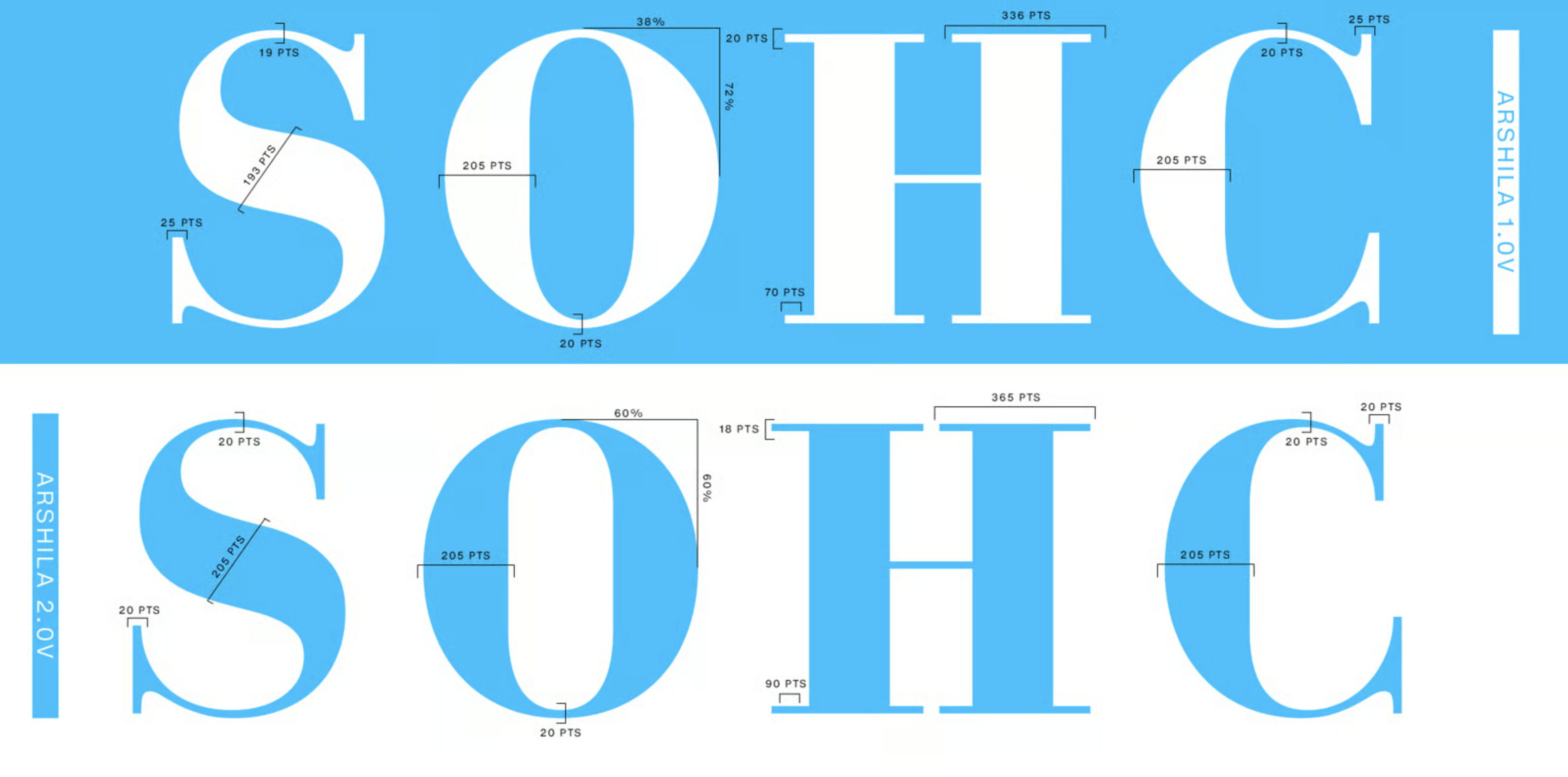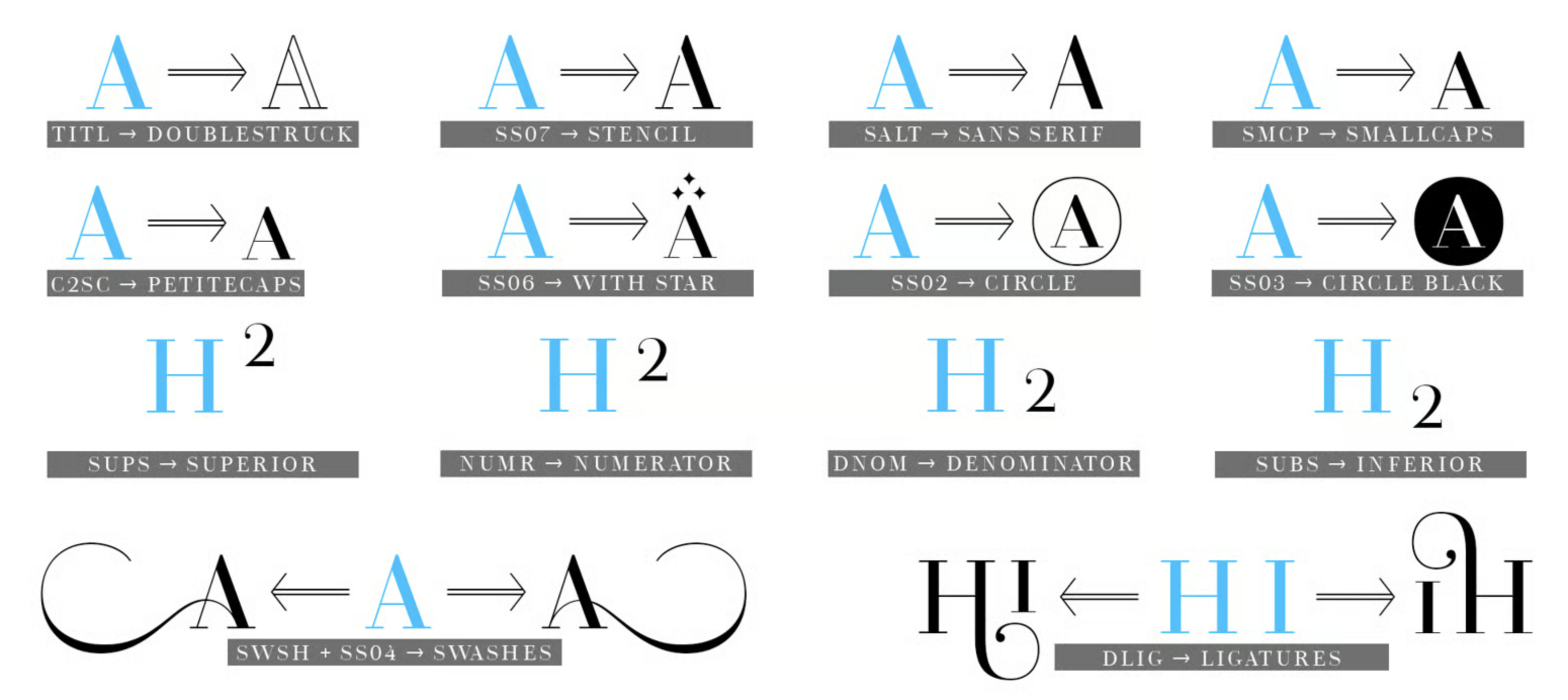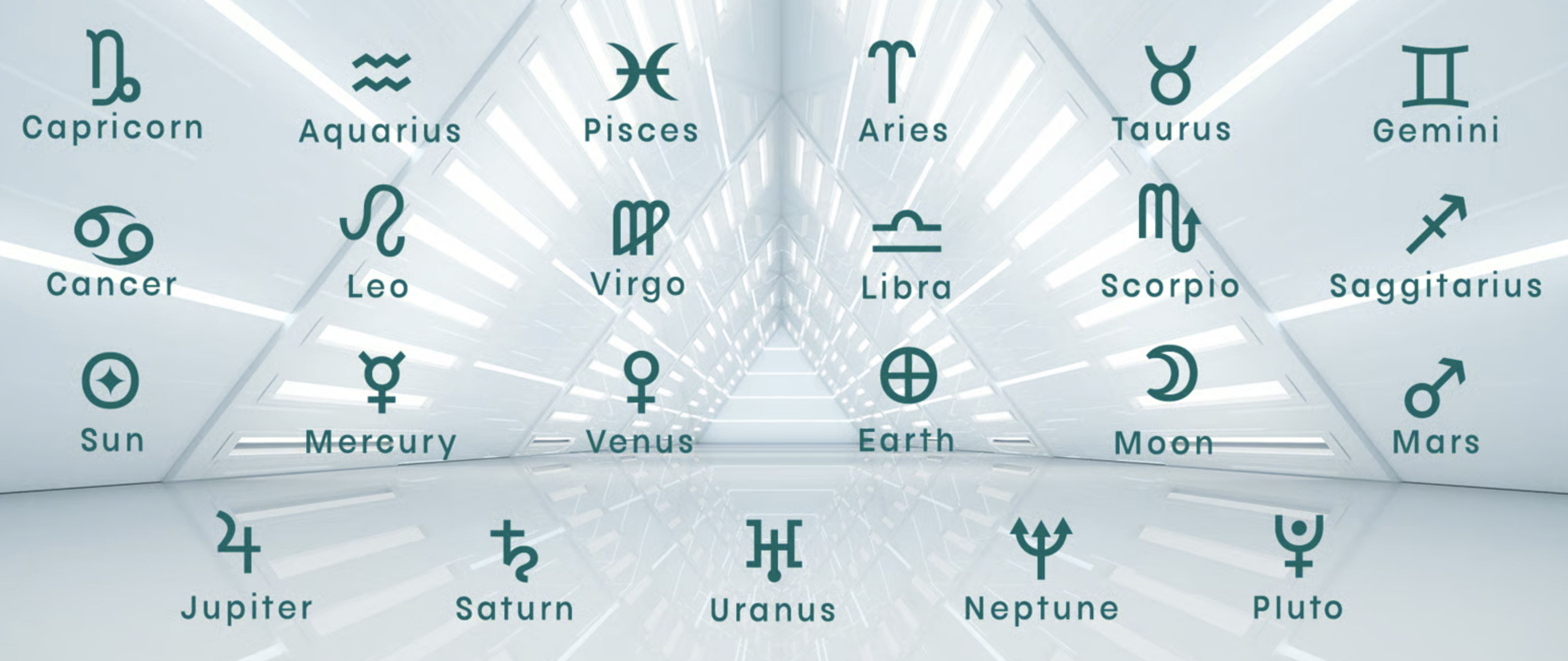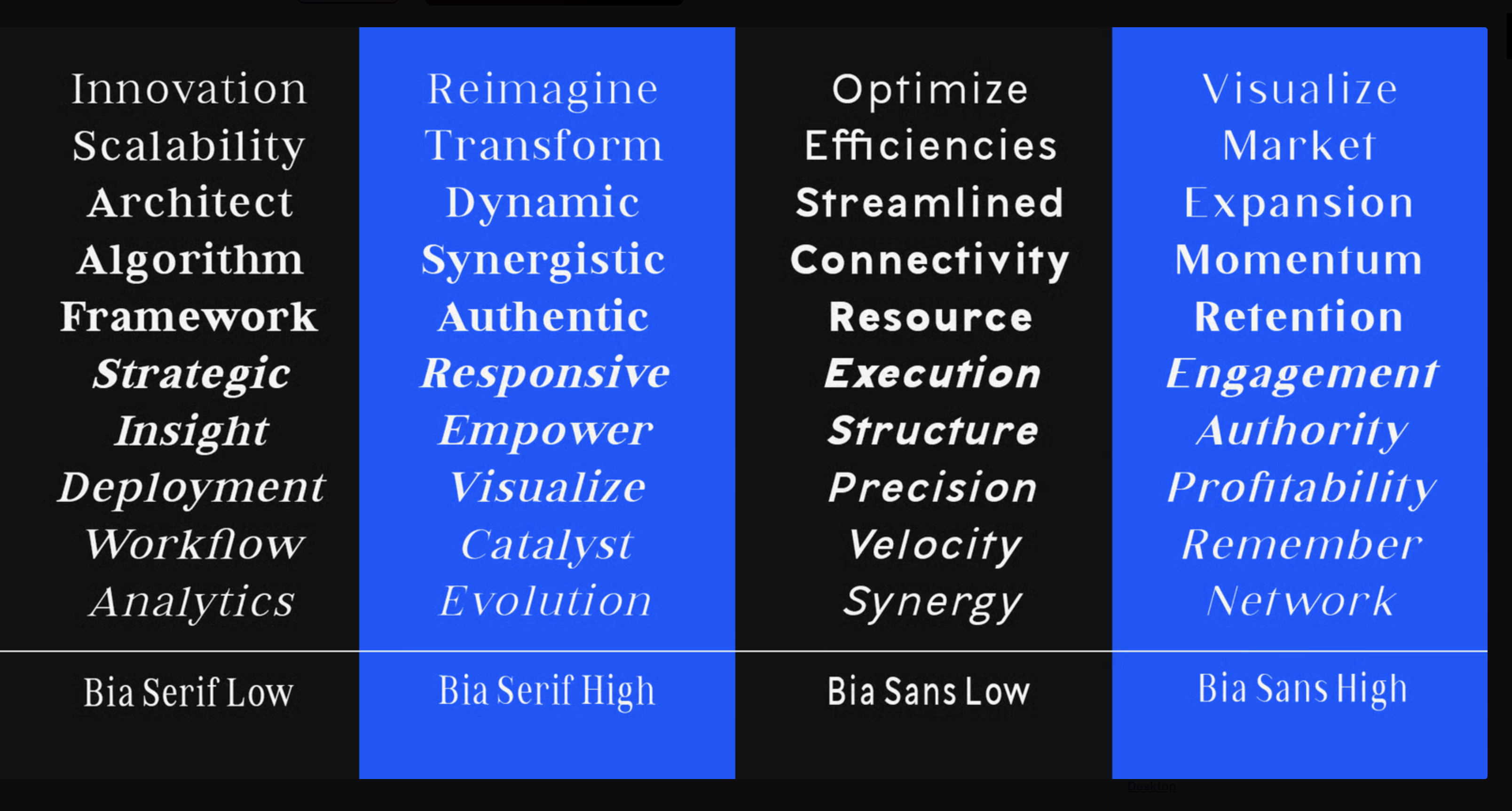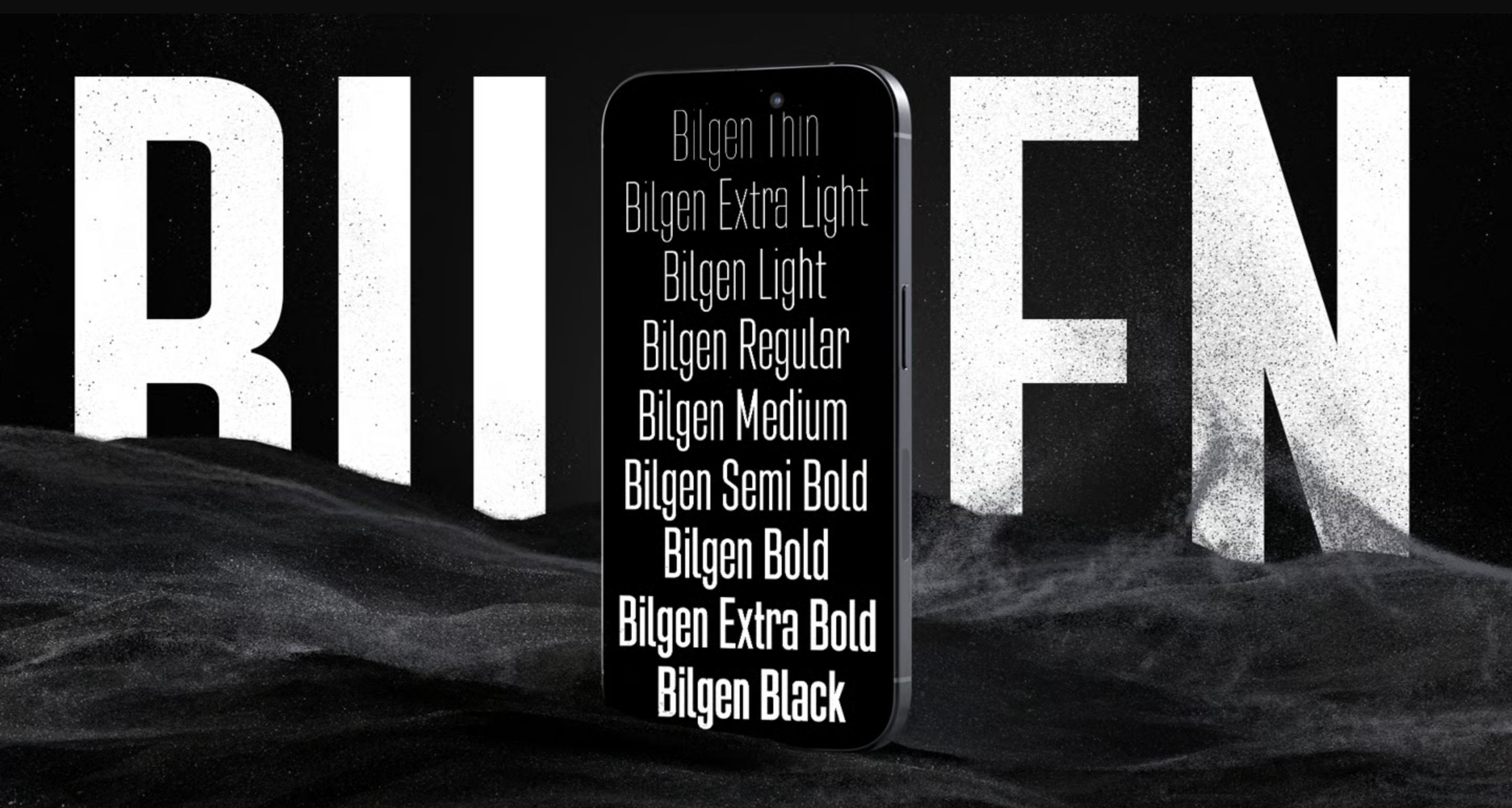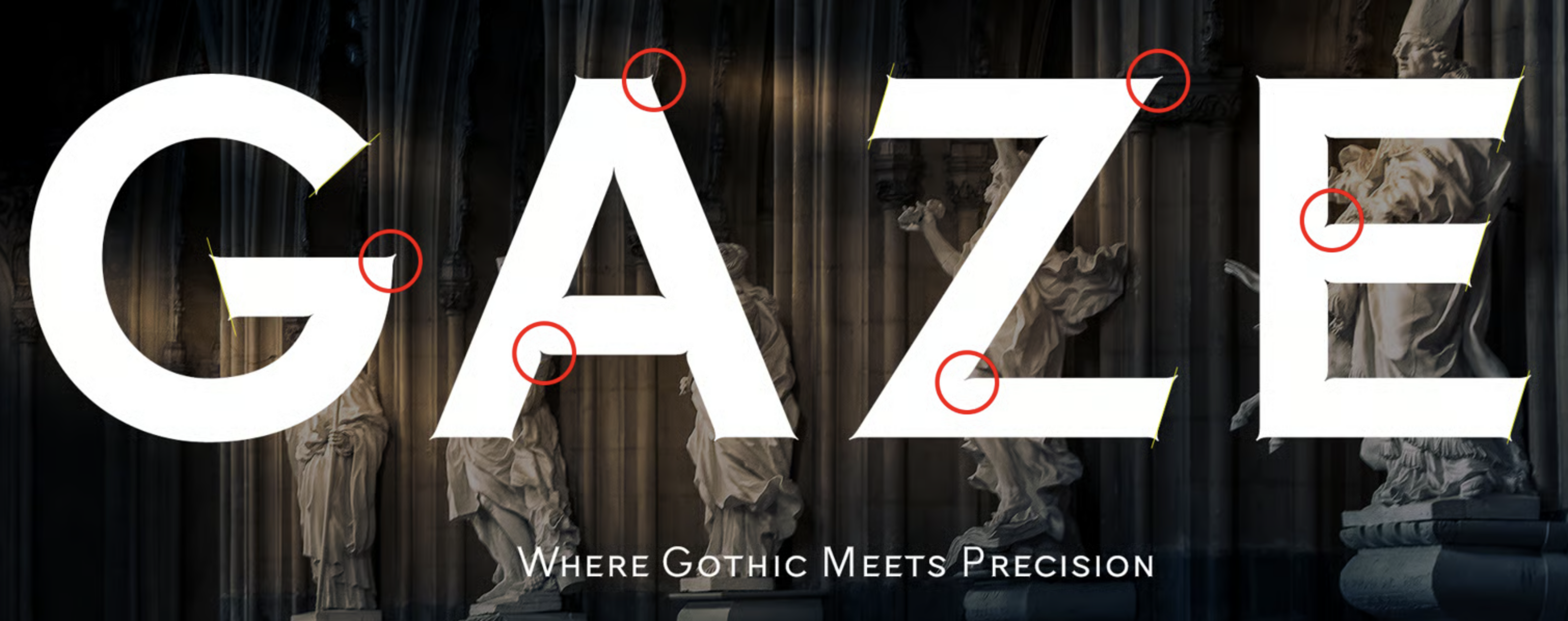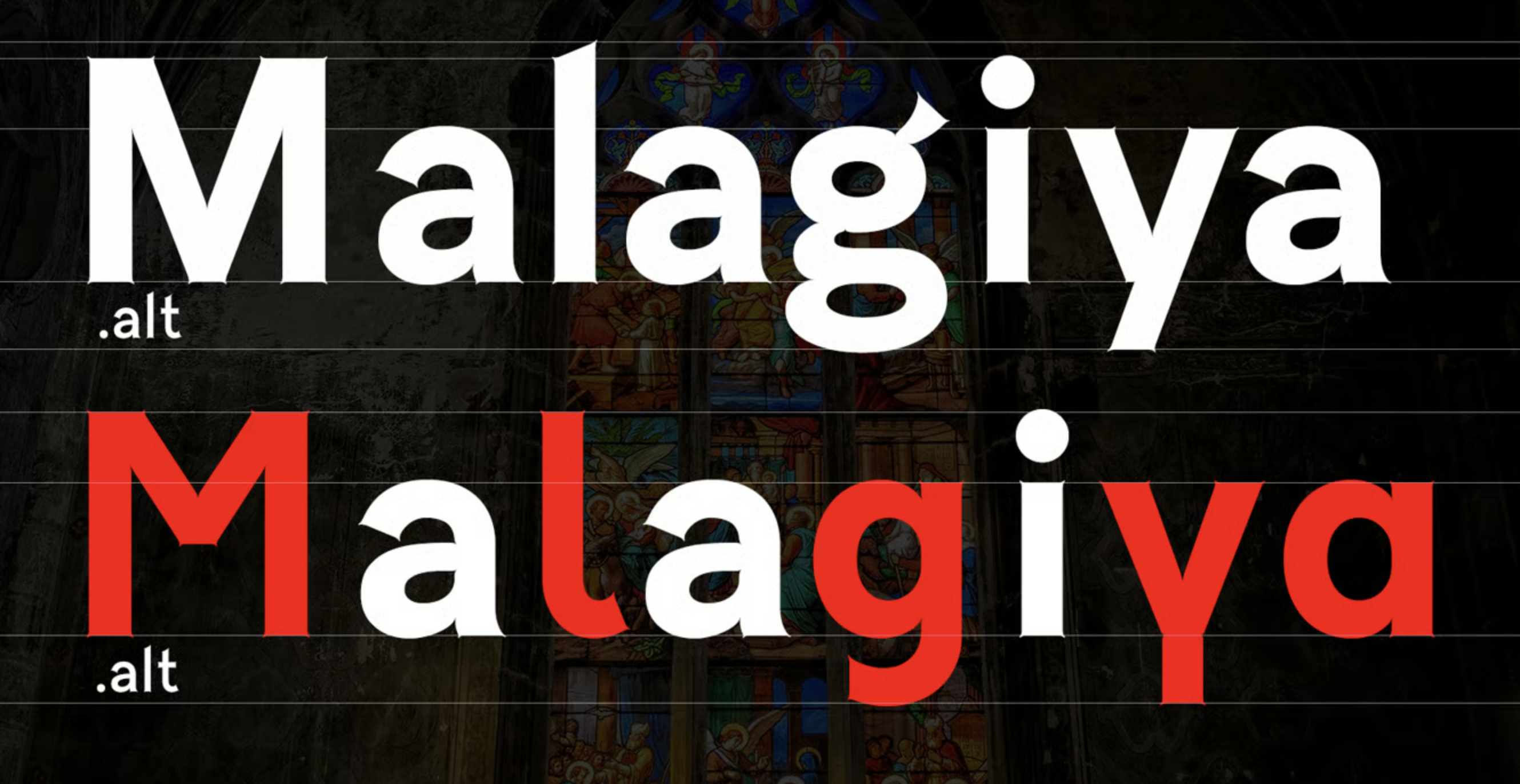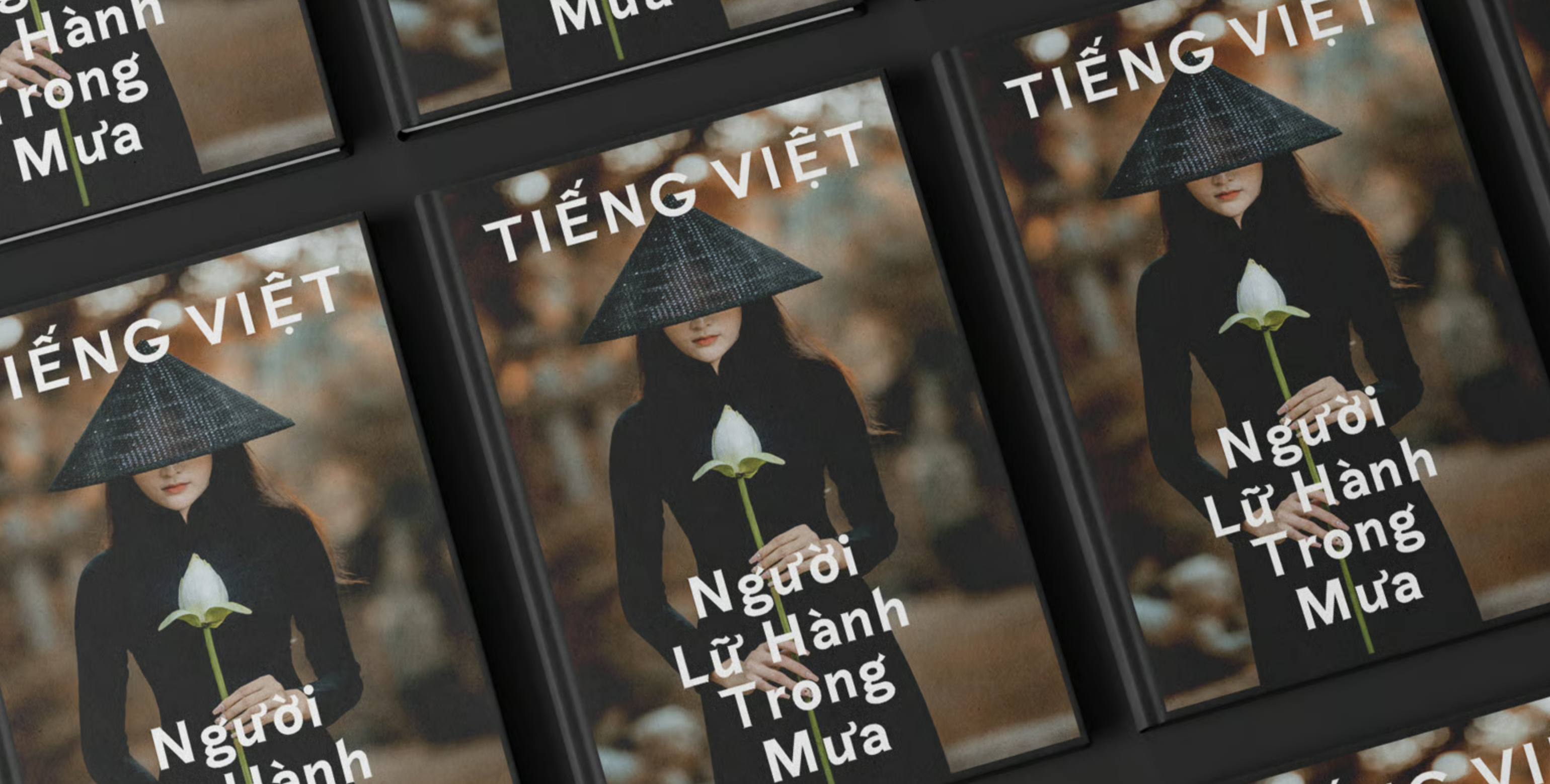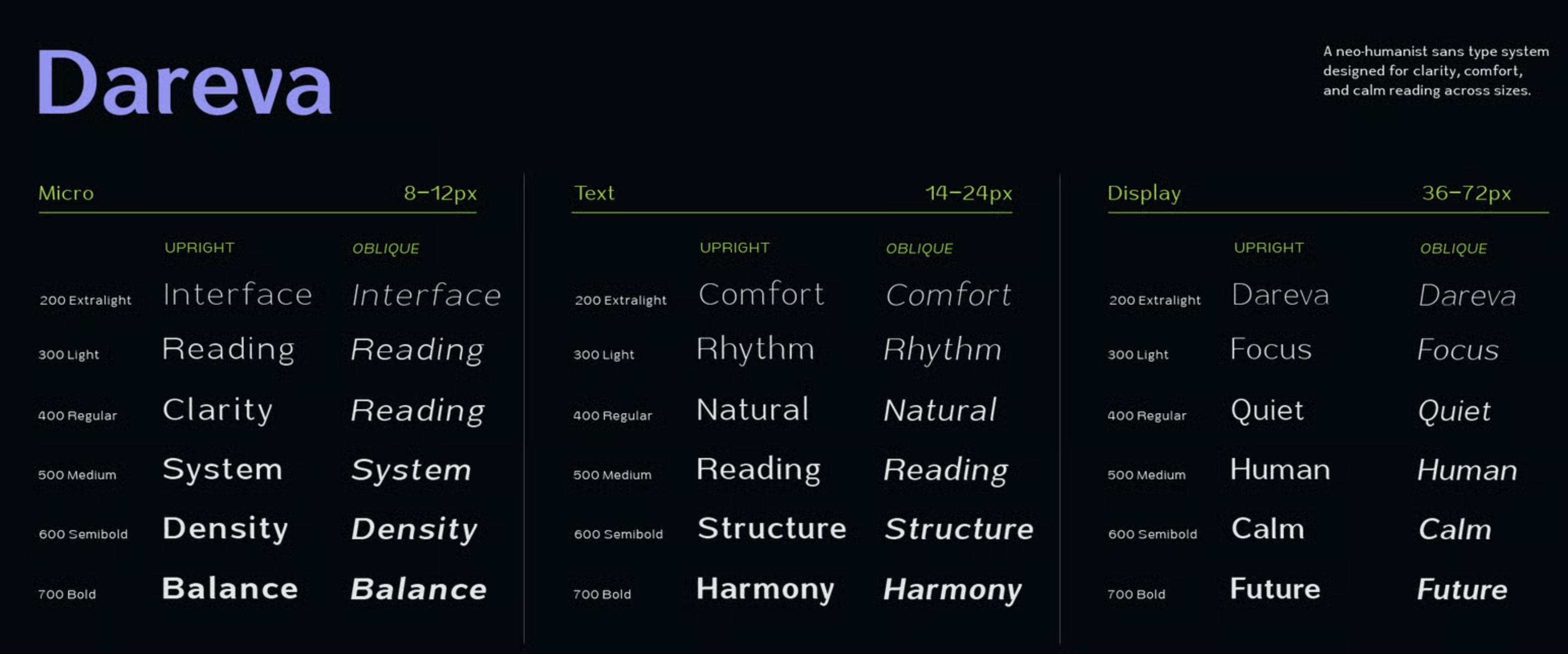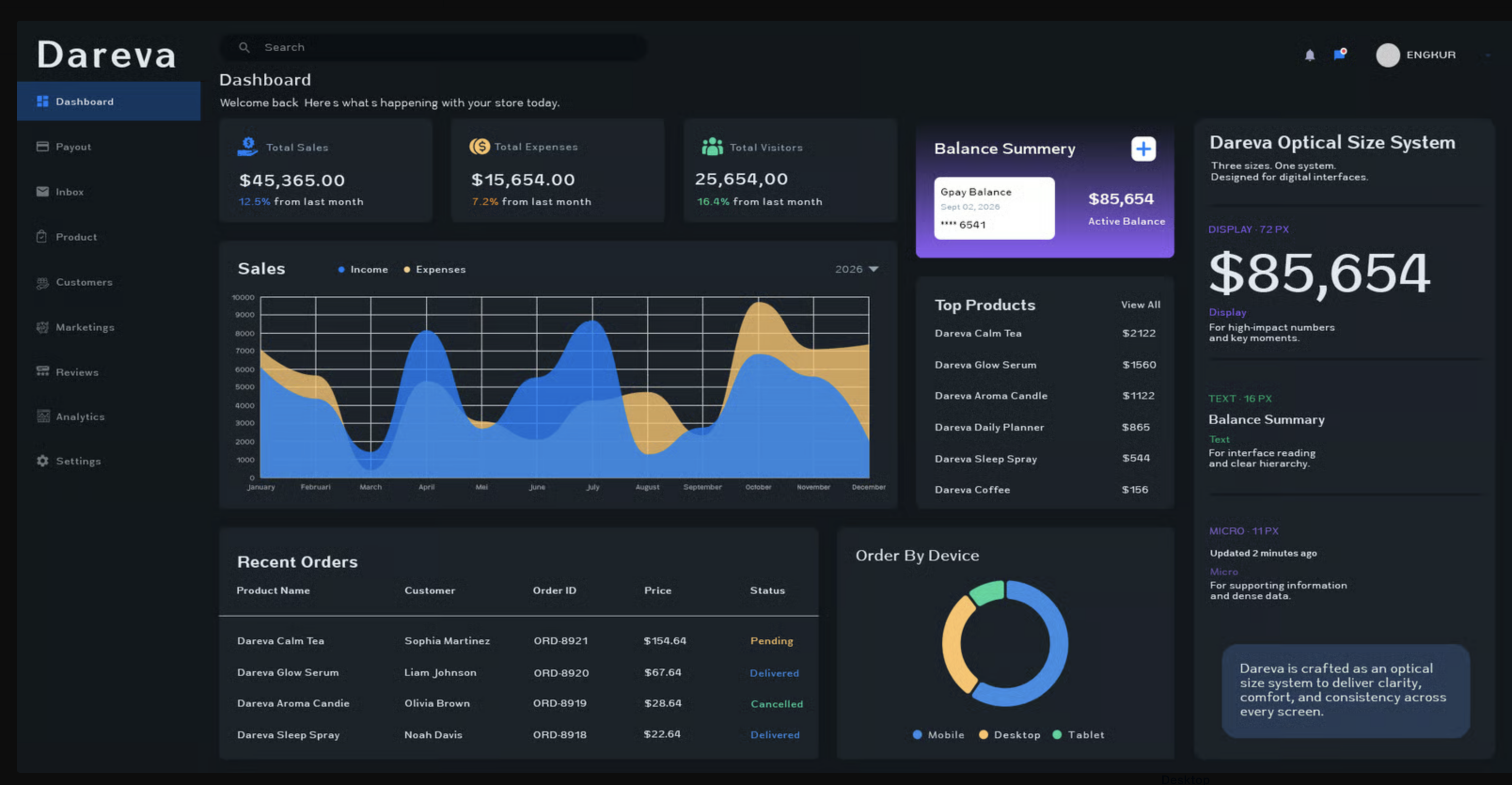
Bykineks Type Foundry [Dede Kurniawan]
Sukabumi, Indonesia-based designer (b. 1998) with an early background in calligraffiti and streey art. From 2023 until 2026, he worked at Indotype. Separately, he set up Bykineks Type Foundry.
Designer of the angry signage script typeface Zarra (2020). In 2021, he designed Wakaba (an ink bleed script). In 2022, he released Gin (blackletter calligraffiti) and Agasthiya Rococo (a spurred rococo script).
In 2026, the Bykineks font collection included
• Alvera (a dot matrix font 2025). Rooted in the raw, pixelated aesthetics of early computing and retro printers, Alvera takes inspiration from From ASCII Art to Comic Sans: The Multisensory Dot Matrix Printer.
• Arshila (a didone typeface in 55 styles, 2023).
• Avita (a geometric sans in 54 styles, 2022).
• Bia (a 202-font transitional serif/sans superfamily, 2026).
• Bilgen (a tall typeface, 2024).
• Caelia (a gothic sans, 2024).
• Dareva (a neo-humanist multiwidth sans in 36 styles, 2026). Designed for quiet reading.
• Gin (blackletter calligraffiti, 2022).
• Kineks (a neo-grotesque sans/serif/slab family with 90 styles, 2025).
• Neela (art nouveau, 2023).
• Wakaba (a slimy pen or ink bleed script, 2021).